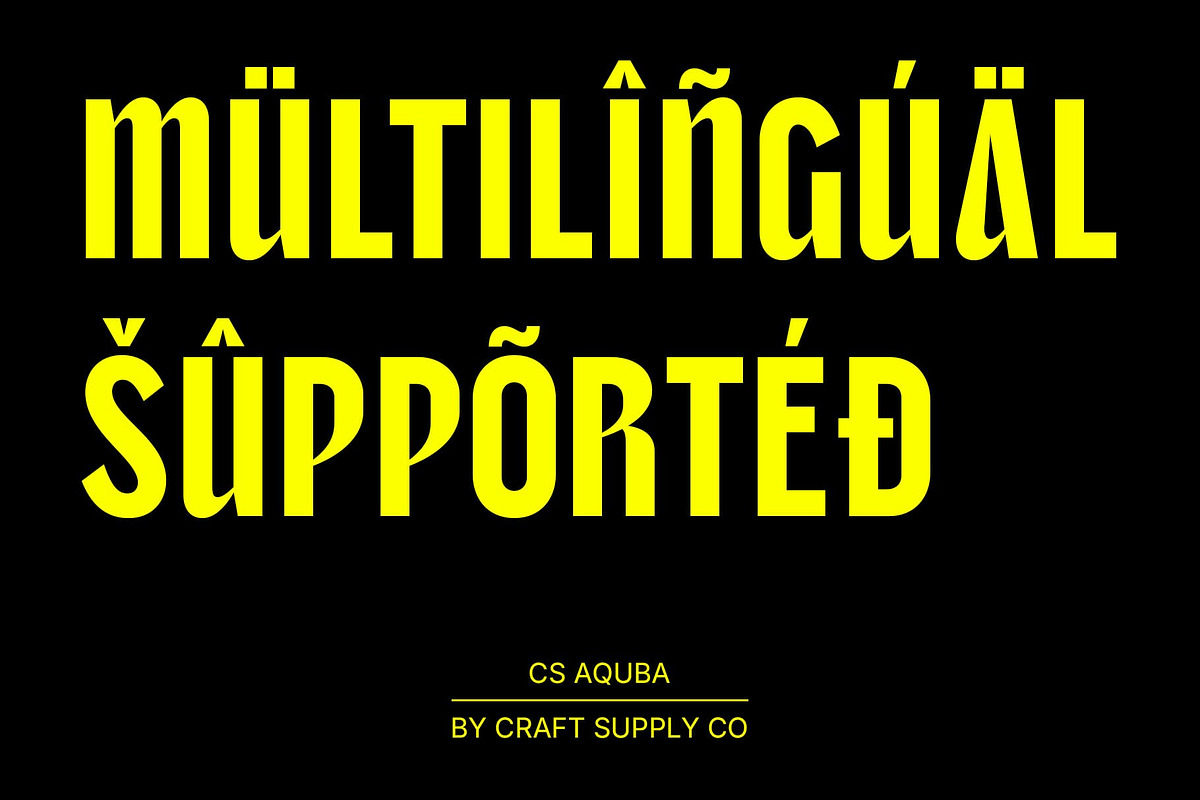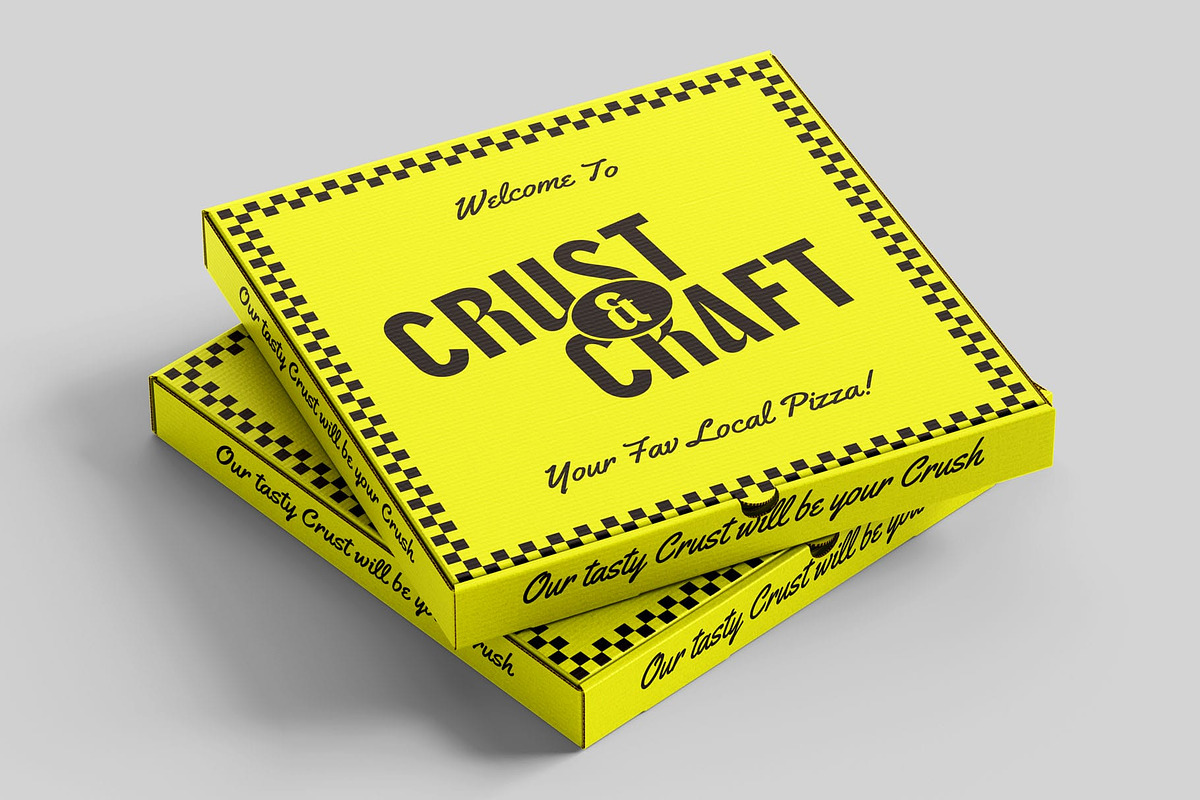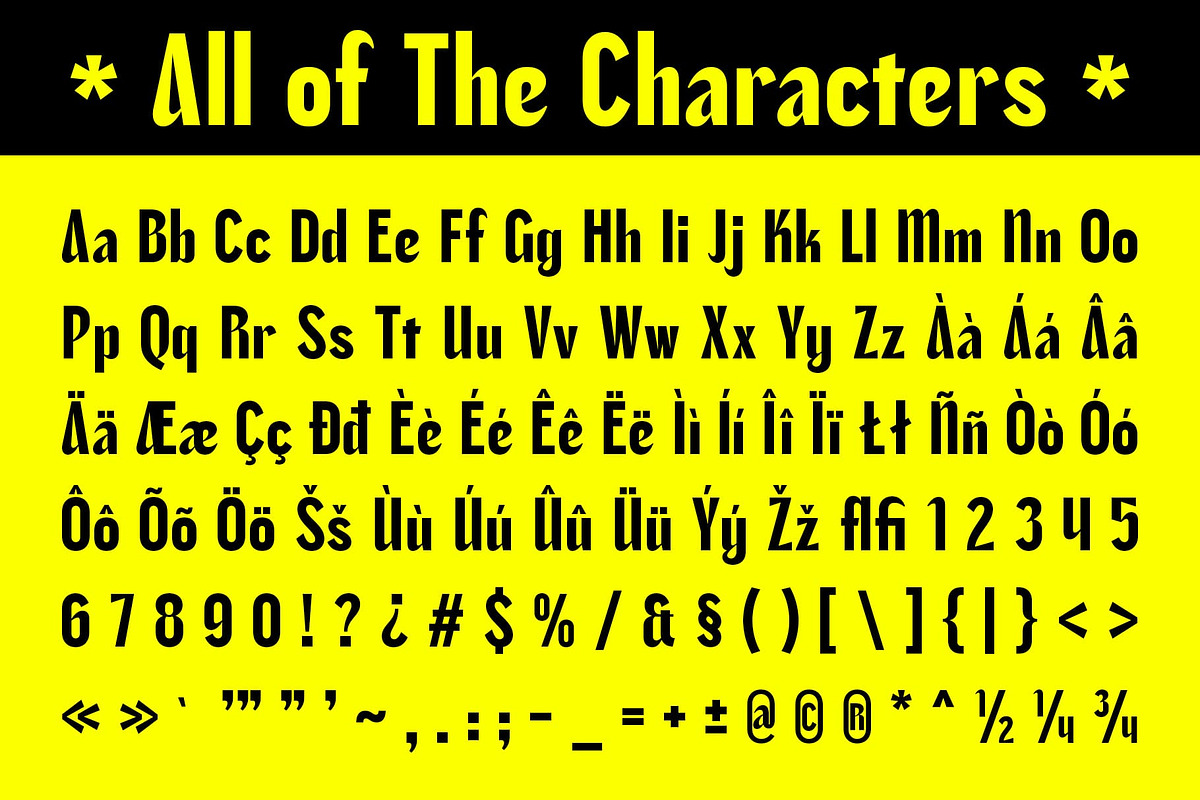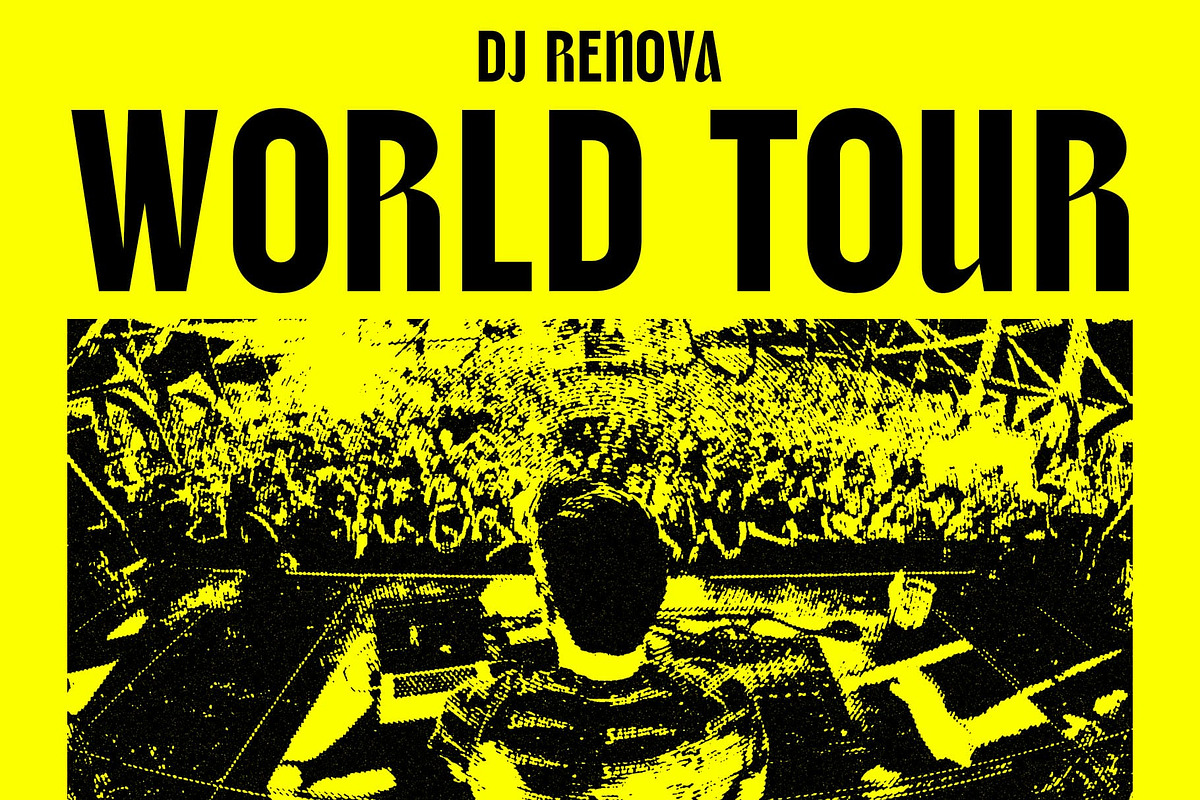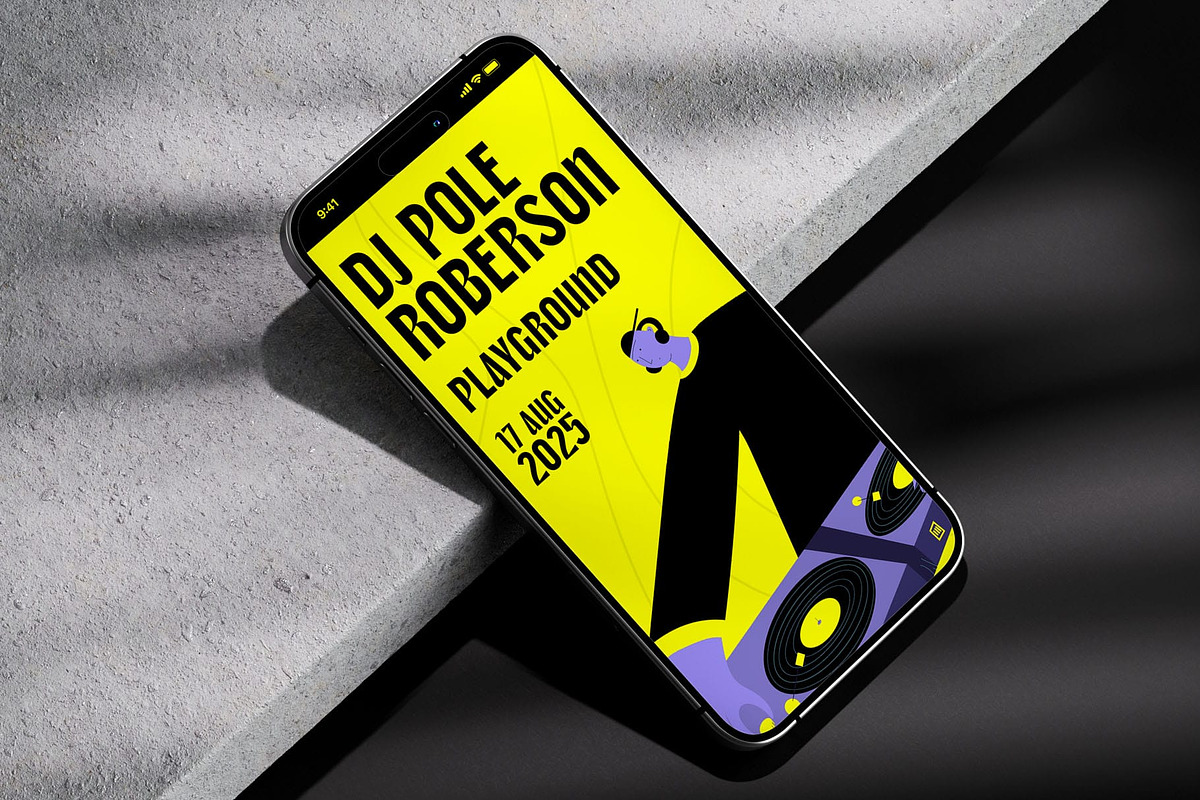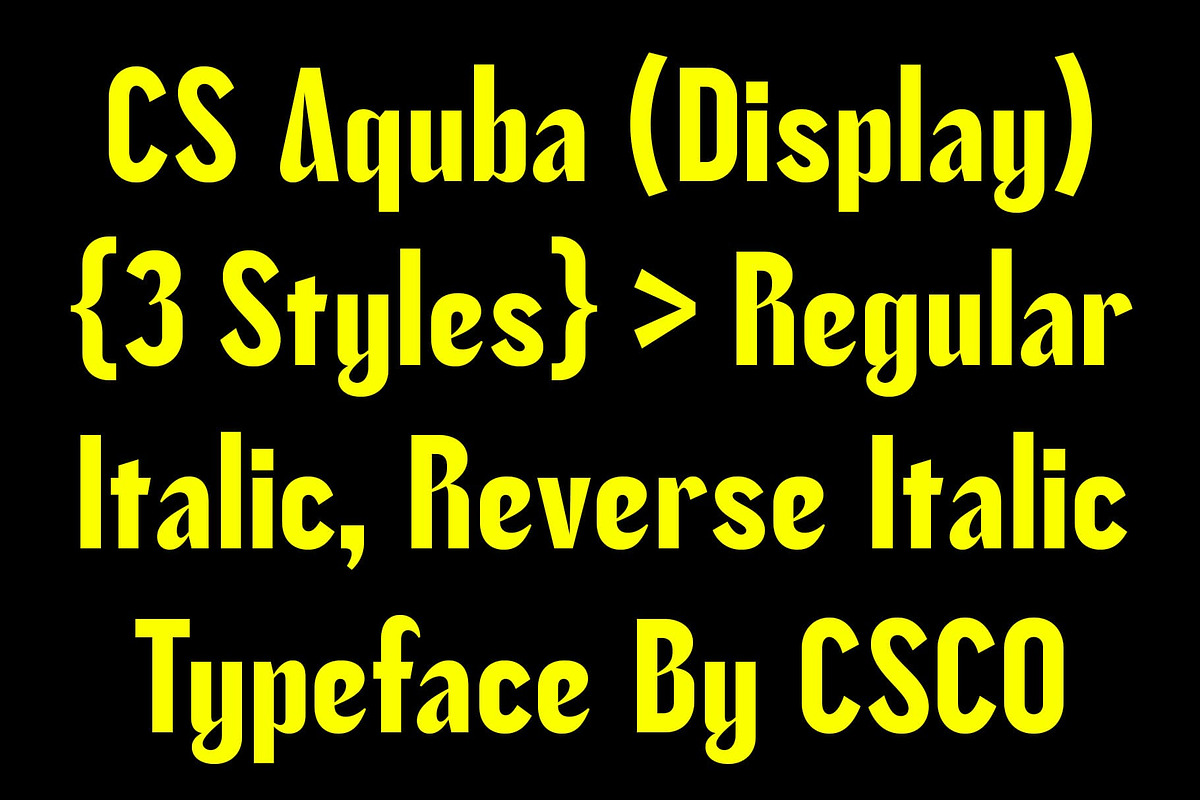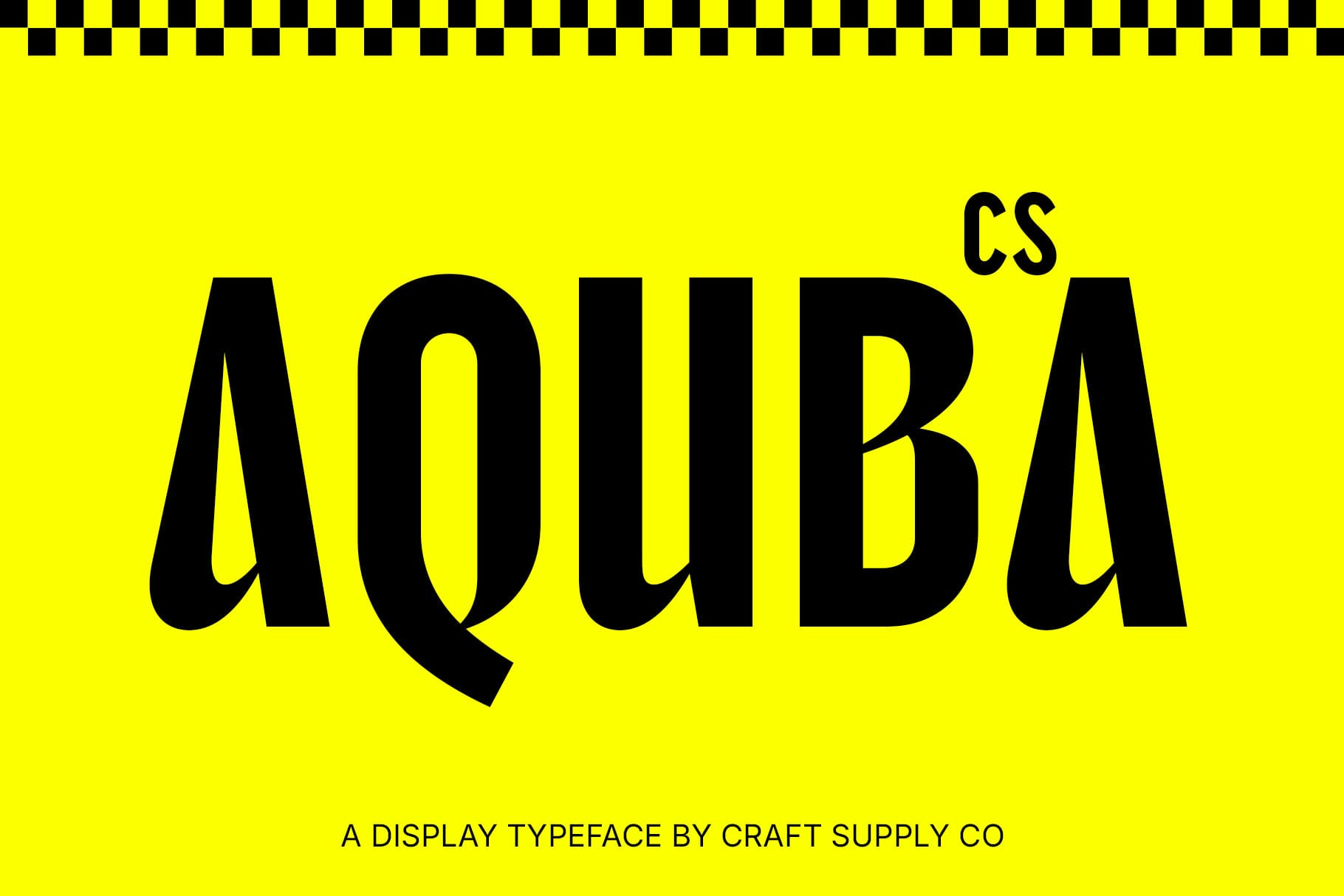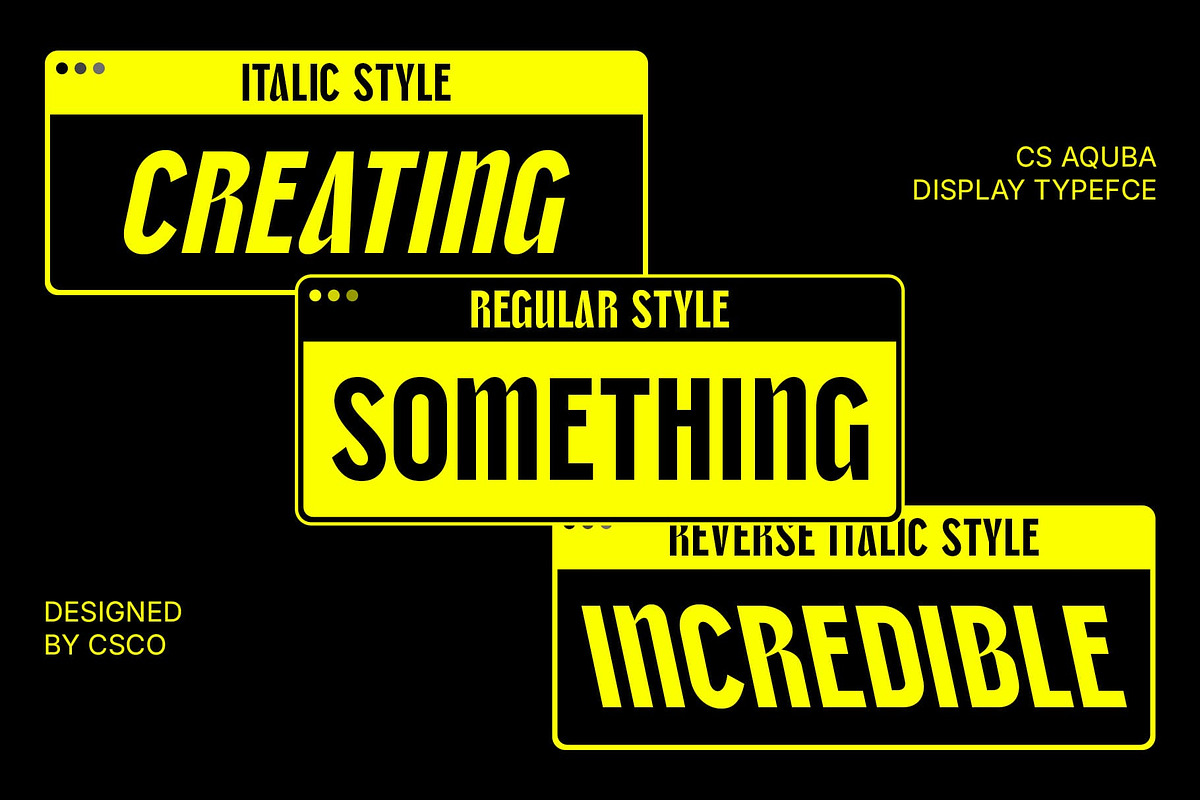
CS Aquba – Bold Font
CS Aquba – Bold Font: Modern Sans Serif with Bold Impact
Striking Geometric Forms CS Aquba is a modern sans serif display font that combines boldness with geometric precision. Its strong, contemporary forms are designed to make a lasting impact, ensuring your design stands out in any context. The clean lines and sharp edges lend a sense of clarity, while the geometric shapes offer a structured yet dynamic look that feels fresh and modern.
Ideal for Branding and Advertising CS Aquba excels in branding and advertising, where visibility and memorability are key. Its strong presence and geometric precision make it the go-to font for logos, promotional materials, and other visual assets that demand attention and professionalism.
Sophisticated, Yet Strong The contemporary style of CS Aquba adds an element of sophistication to its bold design. The combination of clarity and boldness creates a versatile look, allowing the font to work seamlessly across a variety of projects, from digital media to high-impact print materials.
Versatile for Multiple Applications Designed for versatility, CS Aquba works well across diverse applications, from websites to advertising campaigns, and from social media graphics to signage. Its bold, modern aesthetic ensures that your design remains at the forefront of attention, making it a reliable choice for a wide range of professional projects.